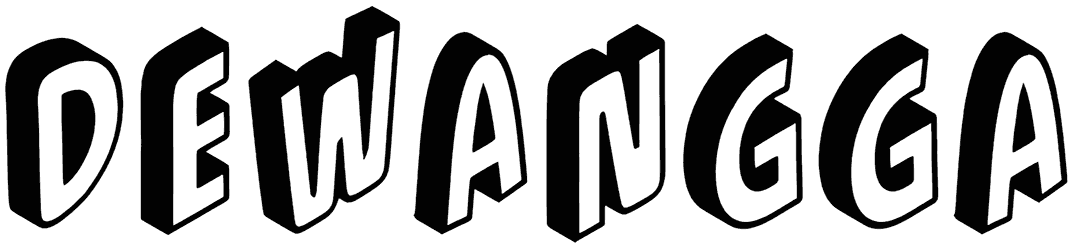
Dewangga Font
While the audience is being bombarded every day by a huge amount of graphic content, standing out in this notorious market would be really tricky, but a magical 3D font such as Dewangga may help you to surprise the viewers and strongly impress them with the incredible quality of your movie posters, video game banners, social media posts, or magazines.
Since its unique style adds a sense of modernity, innovation, and fierceness, the lack of lowercase letters would be negligible.